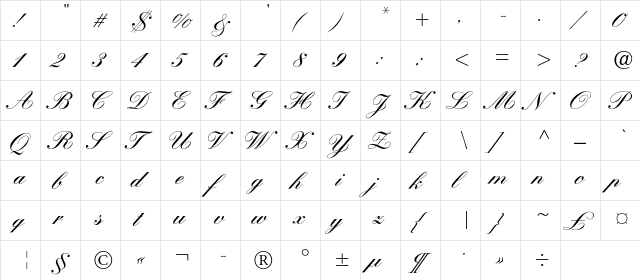
Manuscript-Normal Regular
Design Context for Manuscript-Normal Typeface
Manuscript-Normal flows with the natural rhythm of handwritten lettering, making it ideal for designs that call for warmth and personal expression.
Font Pairing: Combine Manuscript-Normal with a simple geometric sans for maximum contrast — the tension between flowing curves and clean structure is a classic typographic pairing.
Pro Tip: Pair Manuscript-Normal with a clean sans-serif for supporting text. The contrast between fluid script and geometric structure creates an elegant typographic hierarchy.